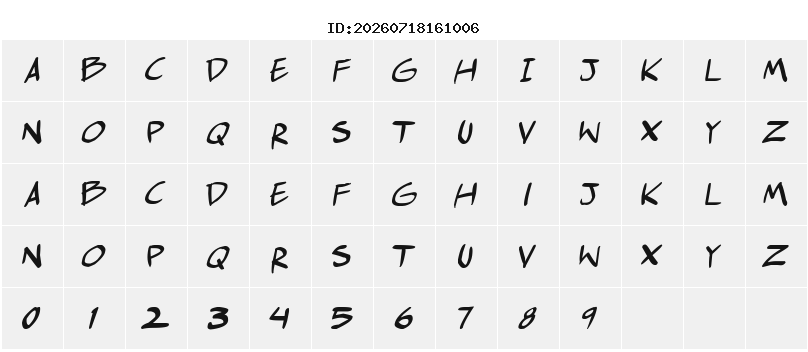
comic huslte Preview
• Font Name: comic huslte
• Font Style: Italique
• Full Font Name: comic huslte Italic
• Designer: Andeh Pinkard
About comic huslte.ttf
comic huslte.ttf is a modern, elegant sans-serif font designed for ultimate readability and visual harmony. Perfect for branding, headlines, web design, and print materials.